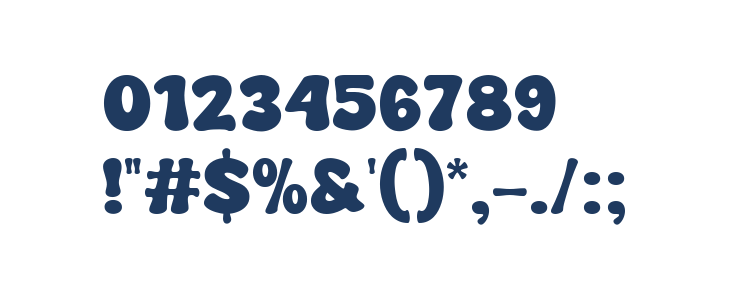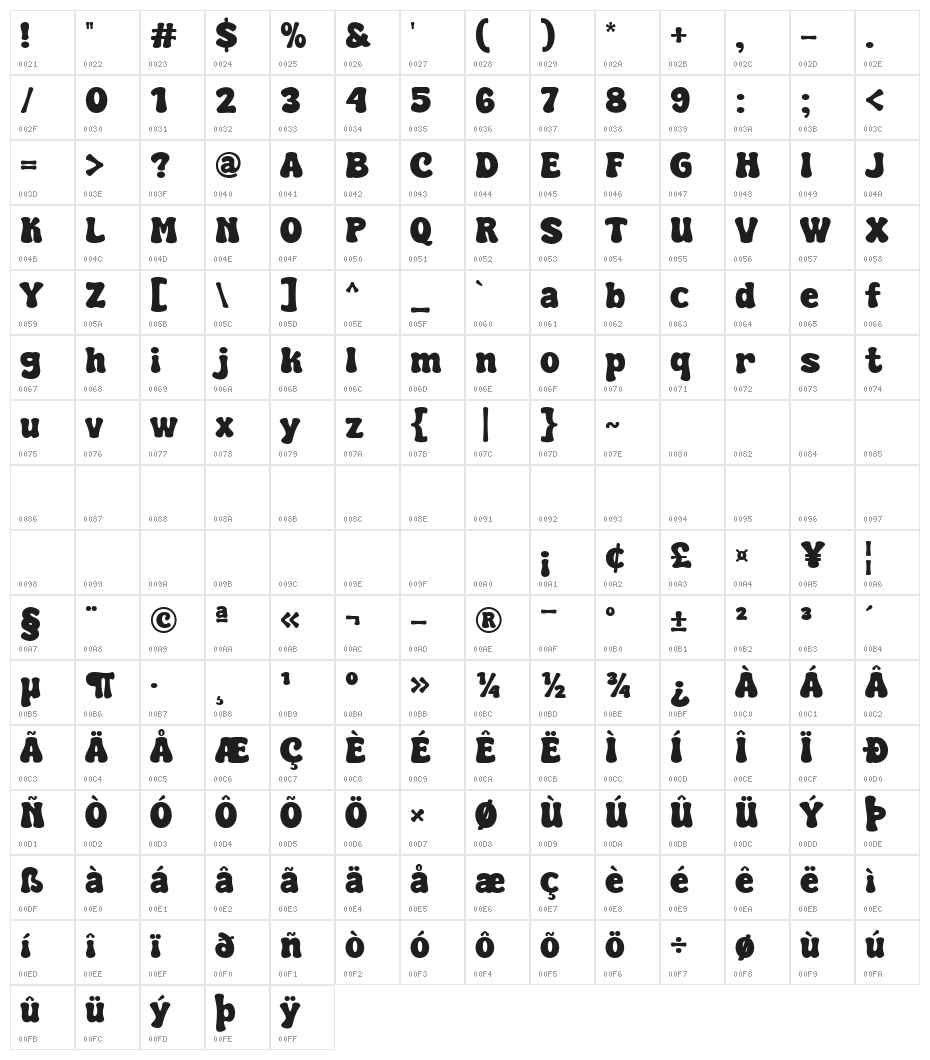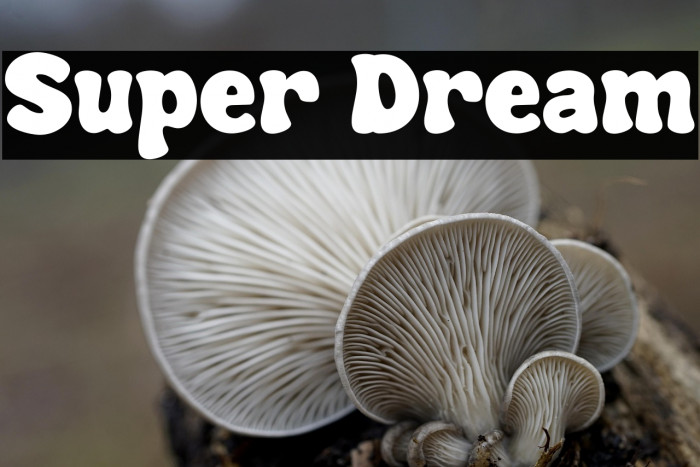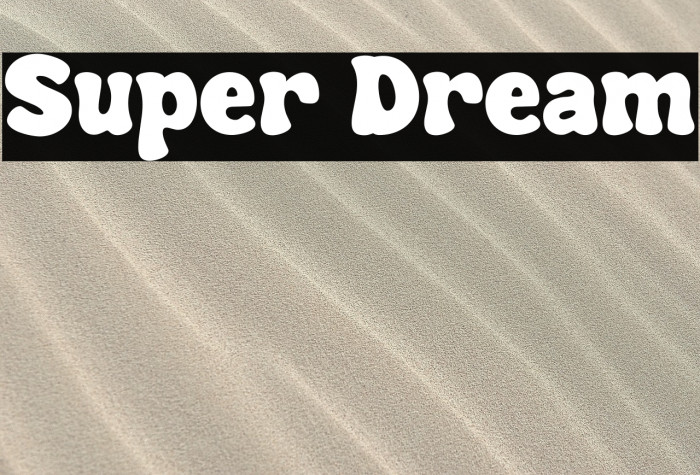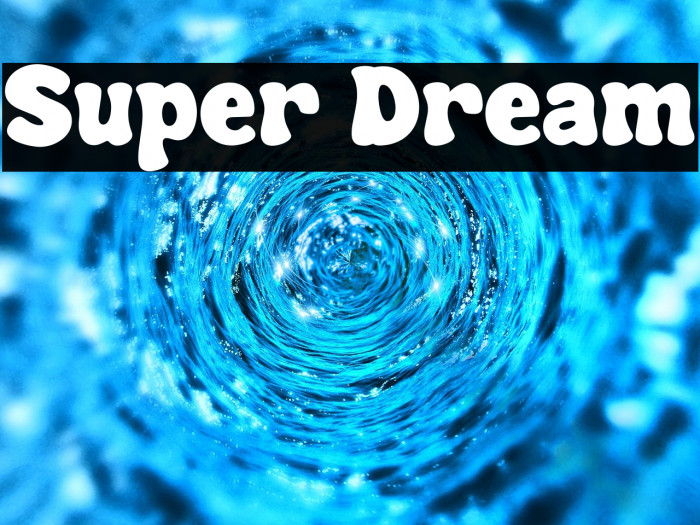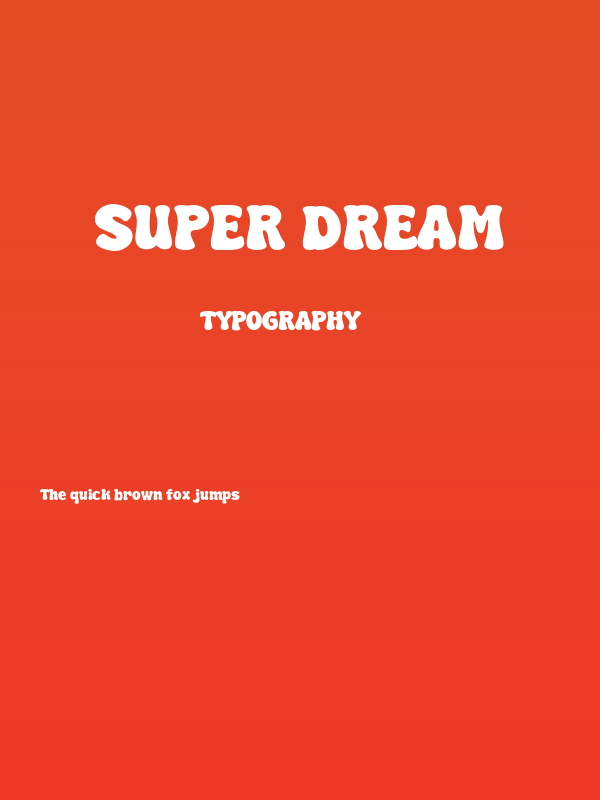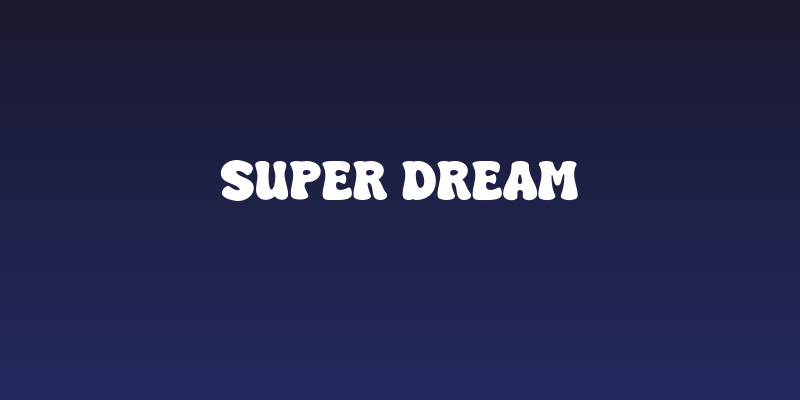
Super Dream Font
Super Dream Description
This font features bold, rounded characters with a playful and bubbly appearance. The letters are thick and have a uniform stroke width, giving them a strong presence. The rounded edges and curves create a friendly and approachable look, making it suitable for designs that aim to convey warmth and fun. The numbers and special characters maintain the same playful style, ensuring consistency across all elements. The overall design is cohesive, with each character maintaining a similar width and height, contributing to a balanced and harmonious appearance.